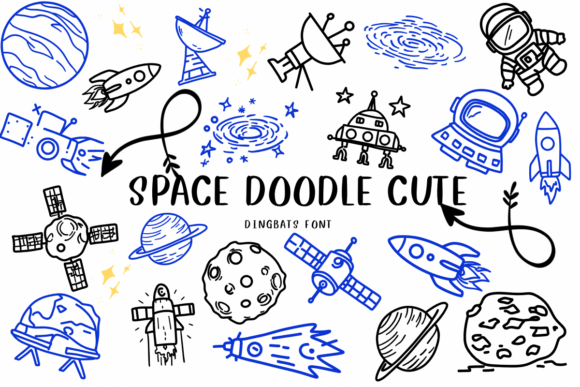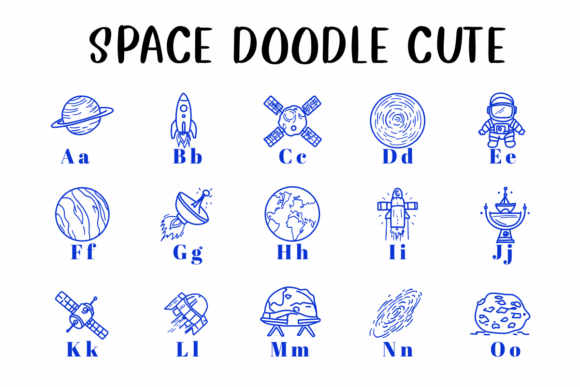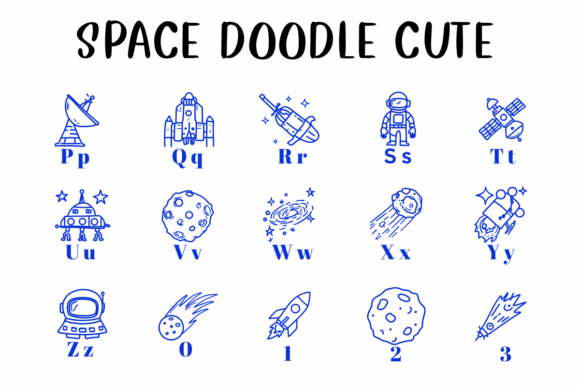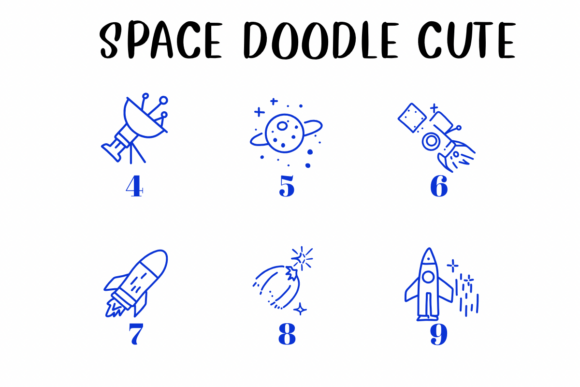
Space Doodle Cute Font
About the Space Doodle Cute Font
Elevate your designs with Space Doodle Cute Font, a font that combines sophistication with readability. Space Doodle Cute is a dingbats font with a sketched theme. This font can enhance your creative projects such as wedding invitations, DIY, crafts, decorations, logos, and many other creative ideas.
Space Doodle Cute Font Usage Examples
Space Doodle Cute Font Example